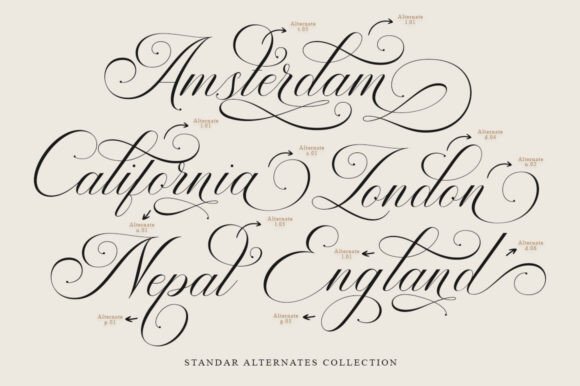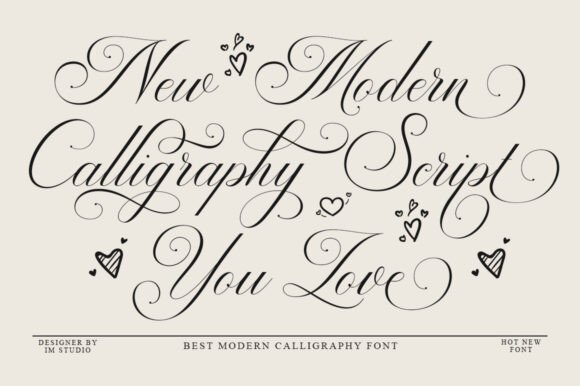
Andertime Font
Immerse yourself in the captivating allure of the Andertime Calligraphy font. This contemporary calligraphic design integrates a Regular feature, redefining casual elegance through its graceful swashes. Its potential application is boundless, effectively enhancing logos, transforming product packaging, and expressing the sentiments on wedding invitations. Whether used for branding, captivating headlines, standout signage or distinctive labels, the Andertime font manifests its versatility. Its elegance extends to signatures, book covers, and posters, offering a subtle sophistication. Moreover, its charm elevates quotes to inspirational statements. Stretch the boundaries of creativity with Andertime Calligraphy font.